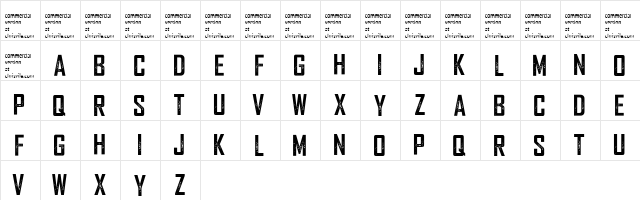
We are Depraved Regular
| Foundry | Font Monger |
| Designer | Chris Vile |
Design Context for We are Depraved Typeface
We are Depraved is a composed and adaptable typeface that performs quietly and consistently across a wide range of design contexts.